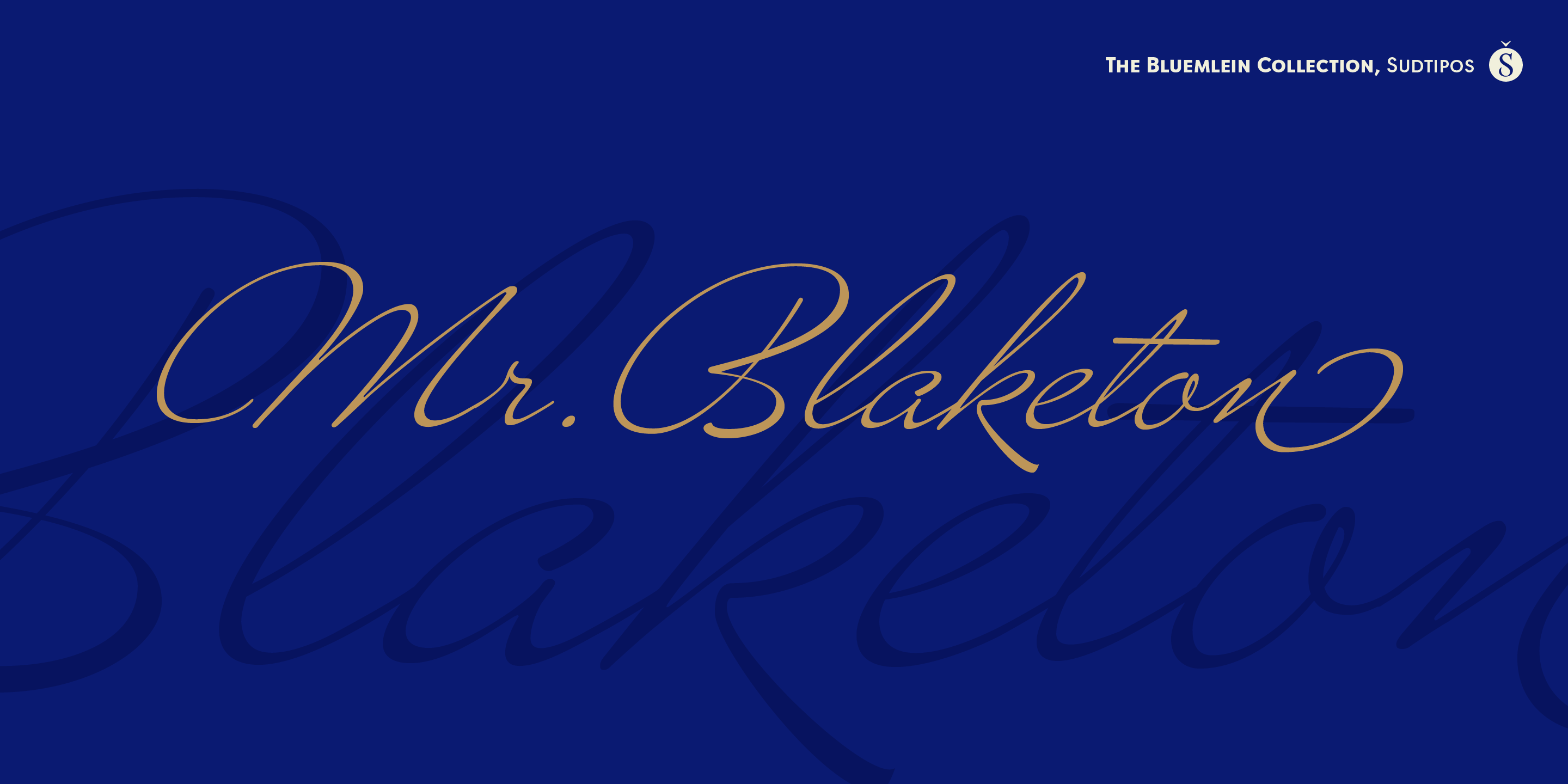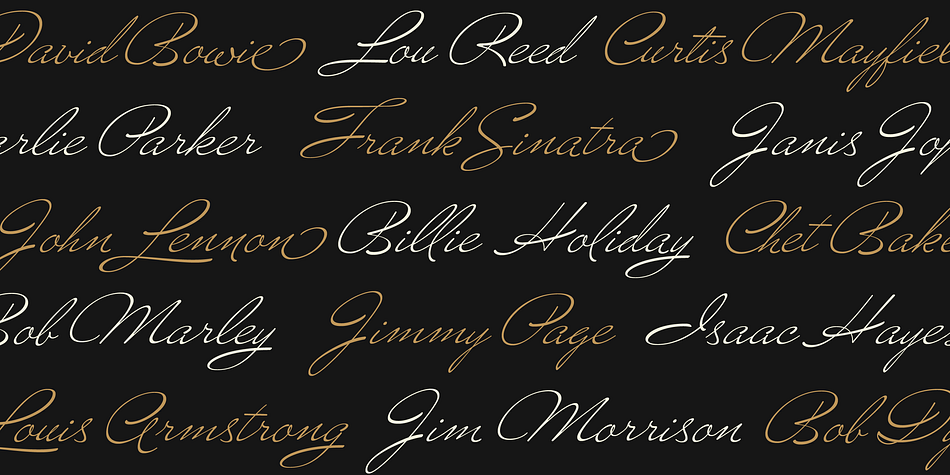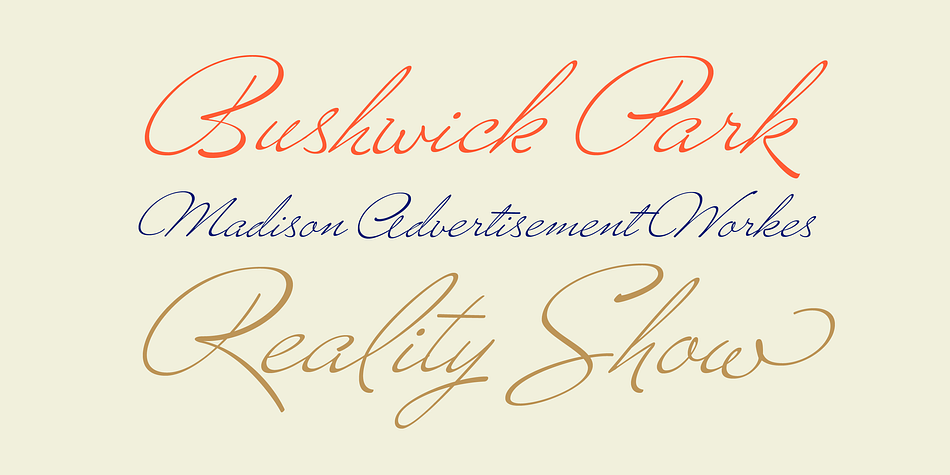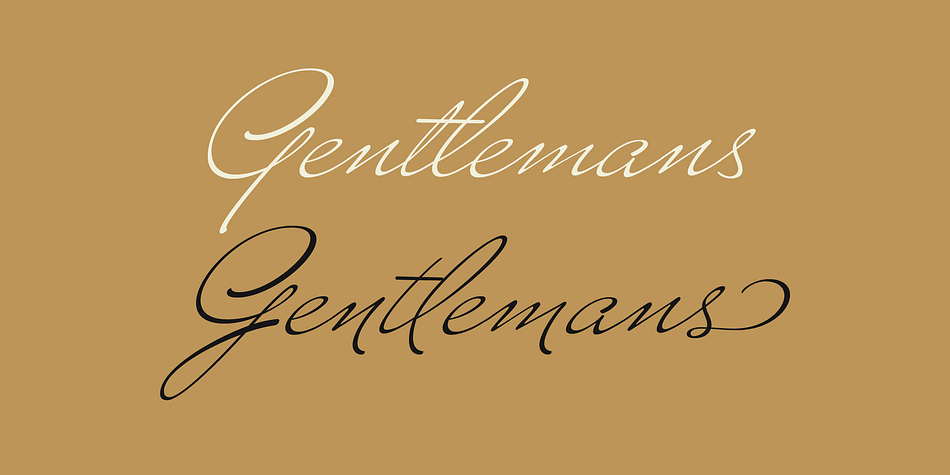
Designed by Alejandro Paul, Mr Blacketon Pro is a script font published by Sudtipos.
The Charles Bluemlein Script Collection is an intriguing reminder of the heady days of hand lettering and calligraphy in the United States. From the early 1930s through World War II, there were about 200 professional hand letterers working in New York City alone. This occupation saw its demise with the advent of photo lettering, and after digital typography, became virtually extinct. The odd way in which the Bluemlein scripts were assembled and created - by collecting different signatures and then building complete alphabets from them - is a fascinating calligraphic adventure. Because the set of constructed designs looked nothing like the original signatures, fictitious names were assigned to the new script typefaces. The typeface styles were then showcased in Higgins Ink catalogs.
Alejandro Paul and Sudtipos bring the Bluemlein scripts back to life in a set of expanded digital versions, reflecting the demands of today’s designer. Extreme care has been taken to render the original scripts authentically, keeping the fictitious names originally assigned to them by Bluemlein.